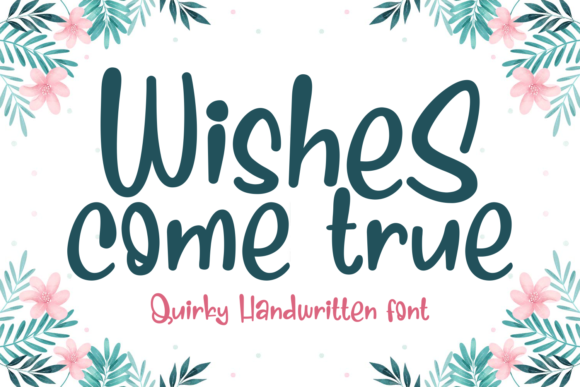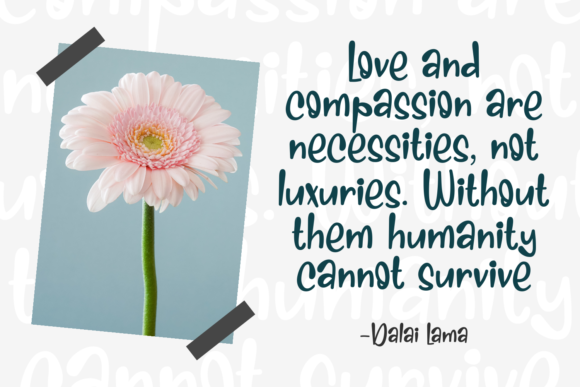
About Wishes Come True Font
Introducing “Wishes Come True” – a sweet and flowing script font that brings a sense of joy and charm to your designs. With its jolly and neat style, this font is incredibly versatile and fitting for a wide range of design projects.
Wishes Come True’s playful and flowing letterforms exude a delightful and whimsical feel. Its neat and well-crafted design makes it suitable for various design applications, from greeting cards and invitations to branding materials and social media posts. Add this font to your projects with confidence, and you’ll love the results it brings.
The versatility of Wishes Come True allows it to adapt seamlessly to different themes and styles. Its flowing script adds a touch of elegance and personality, while its playful nature brings a sense of joy and warmth. Whether you’re creating designs for special occasions, children’s products, or any other project that calls for a cheerful and charming aesthetic, Wishes Come True will be a wonderful choice.
Embrace the sweetness and flowing nature of Wishes Come True, and let it bring a touch of joy and charm to your designs. With this font, your projects will radiate positivity and evoke smiles from your audience. Let your wishes come true with the delightful essence of this font.